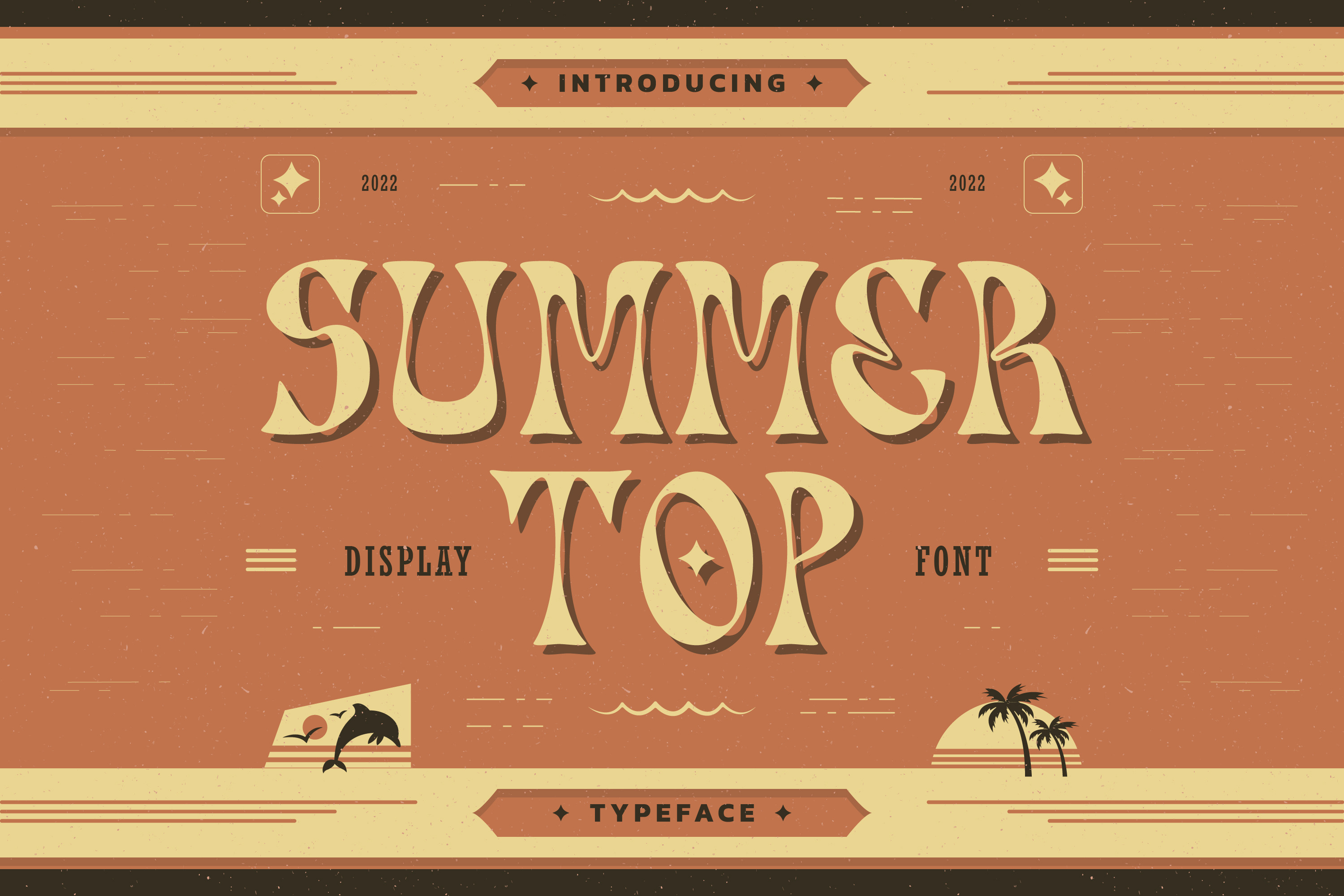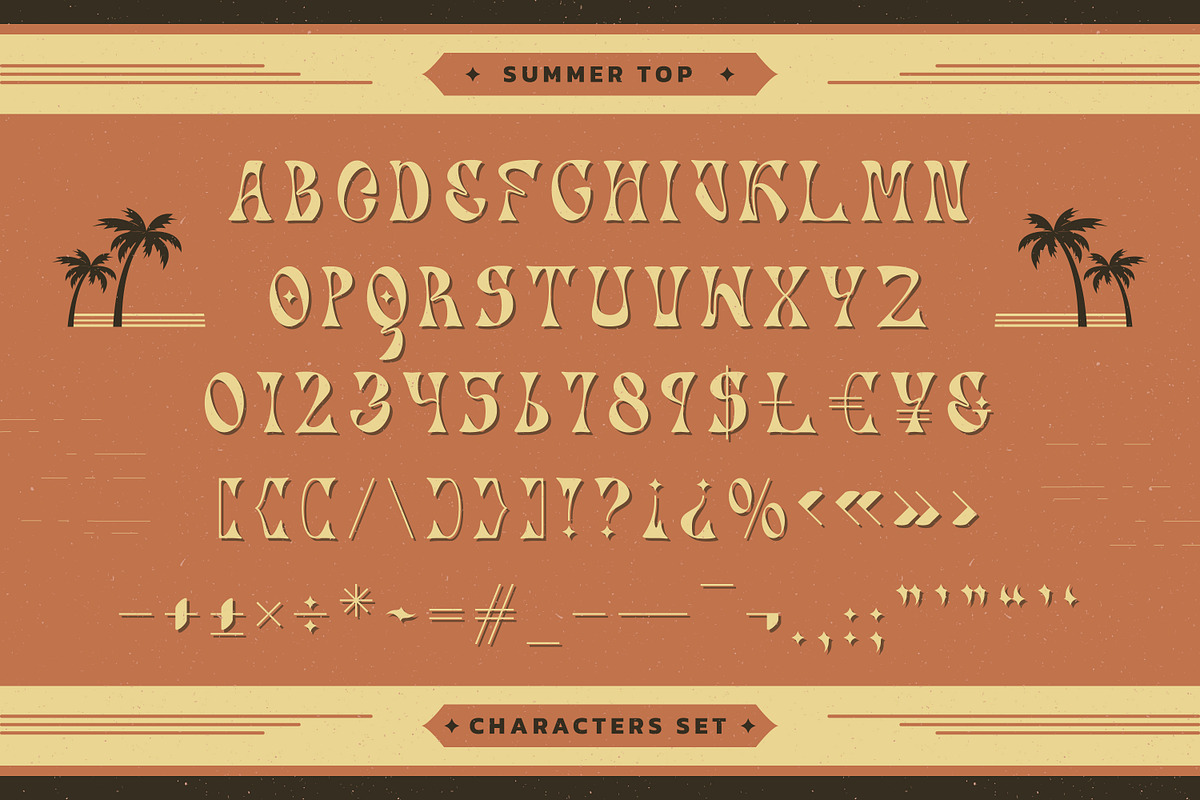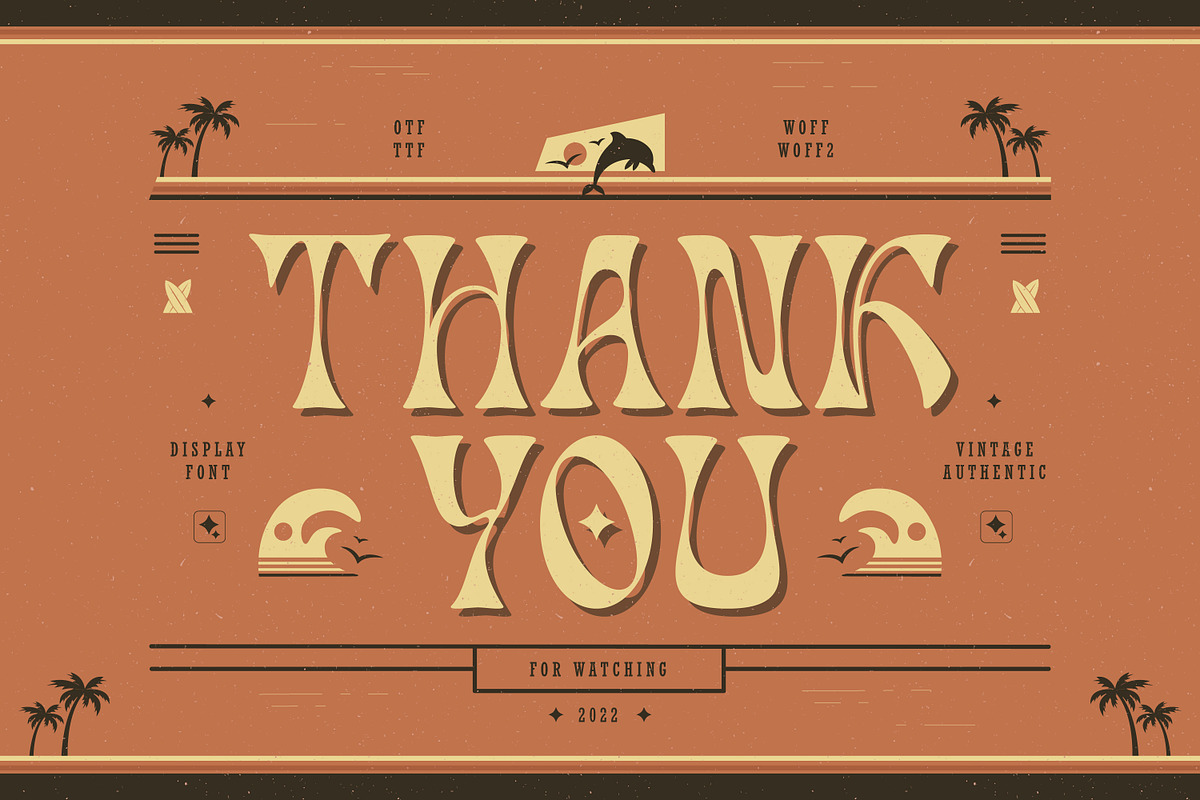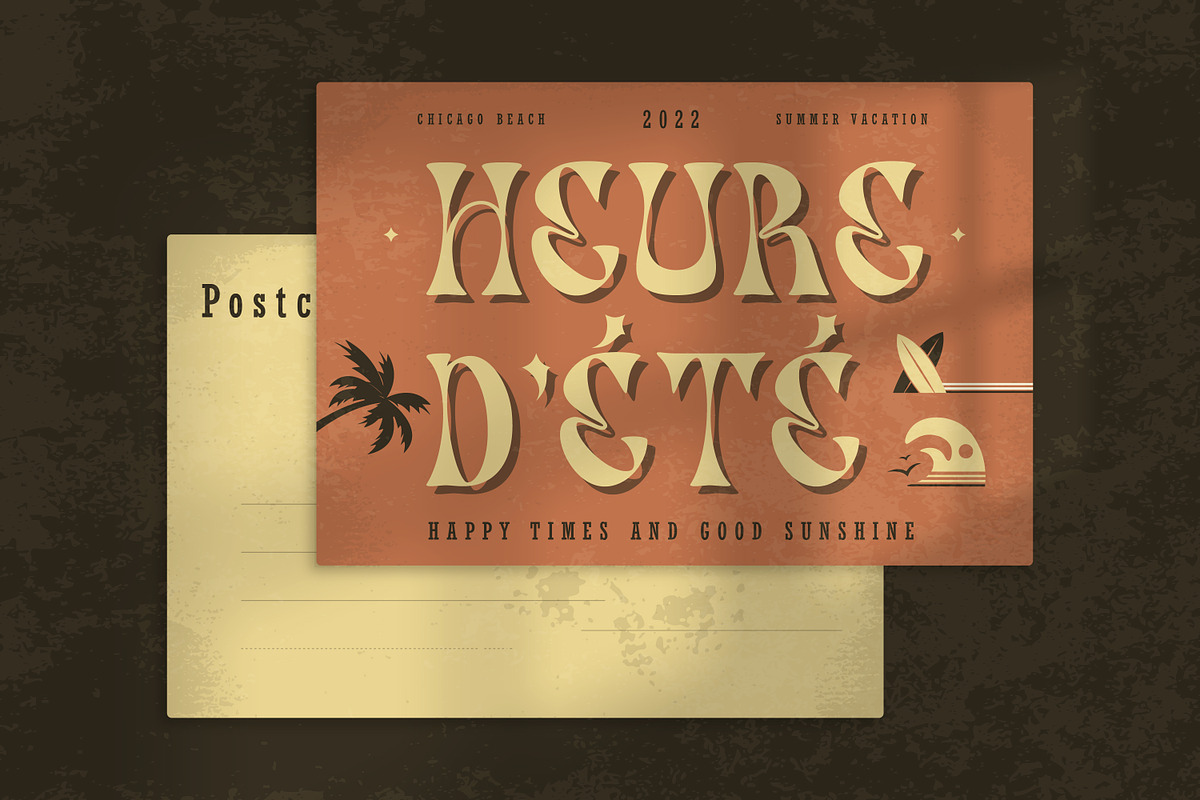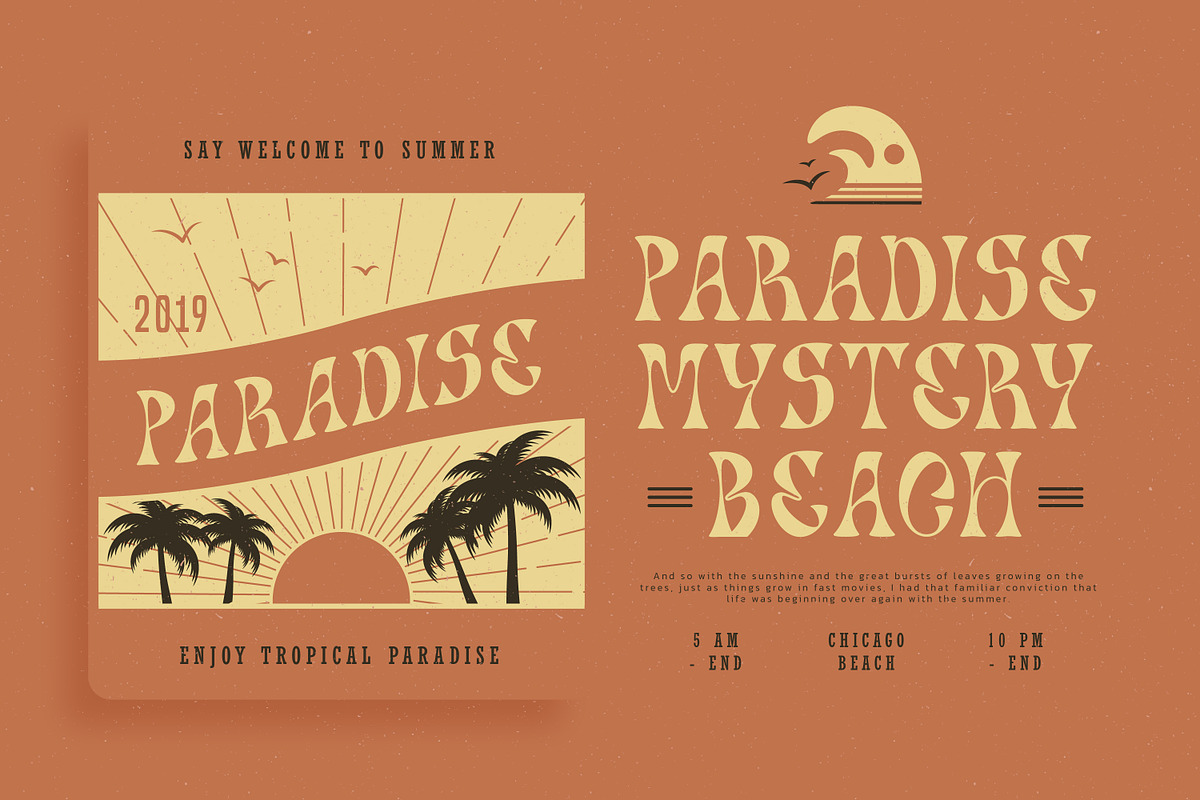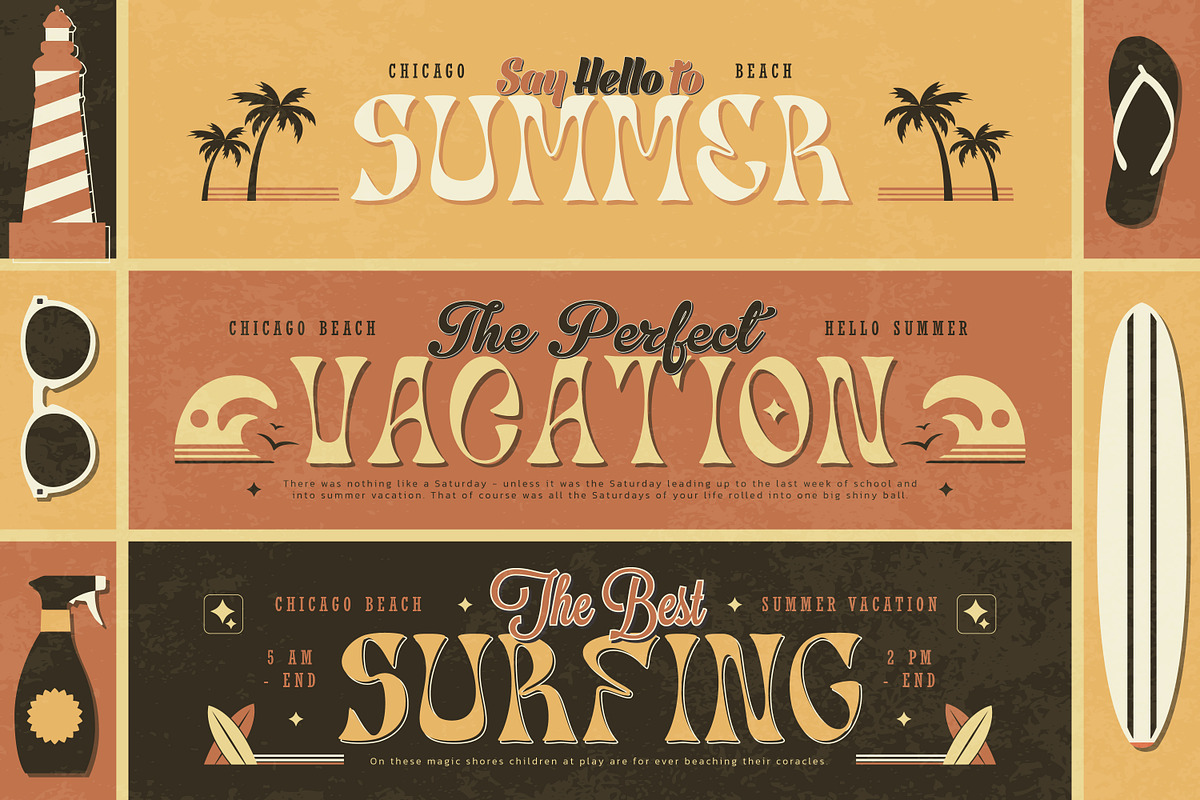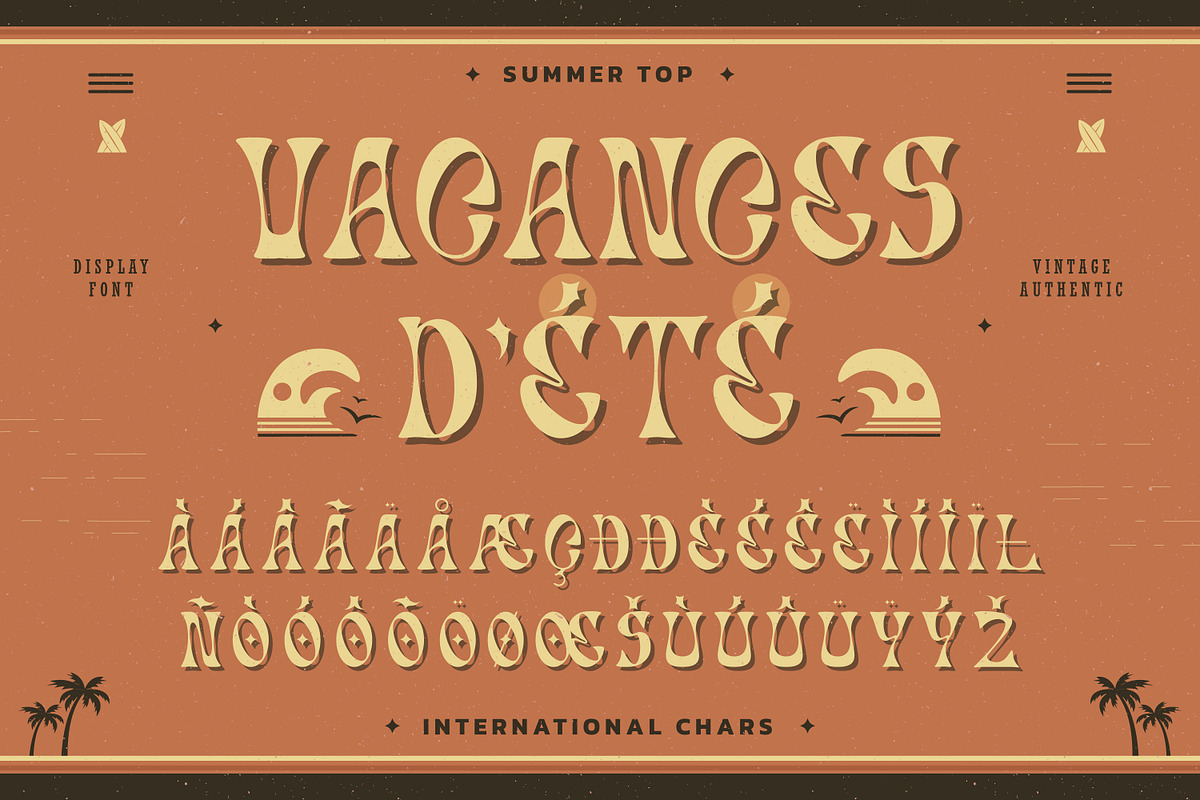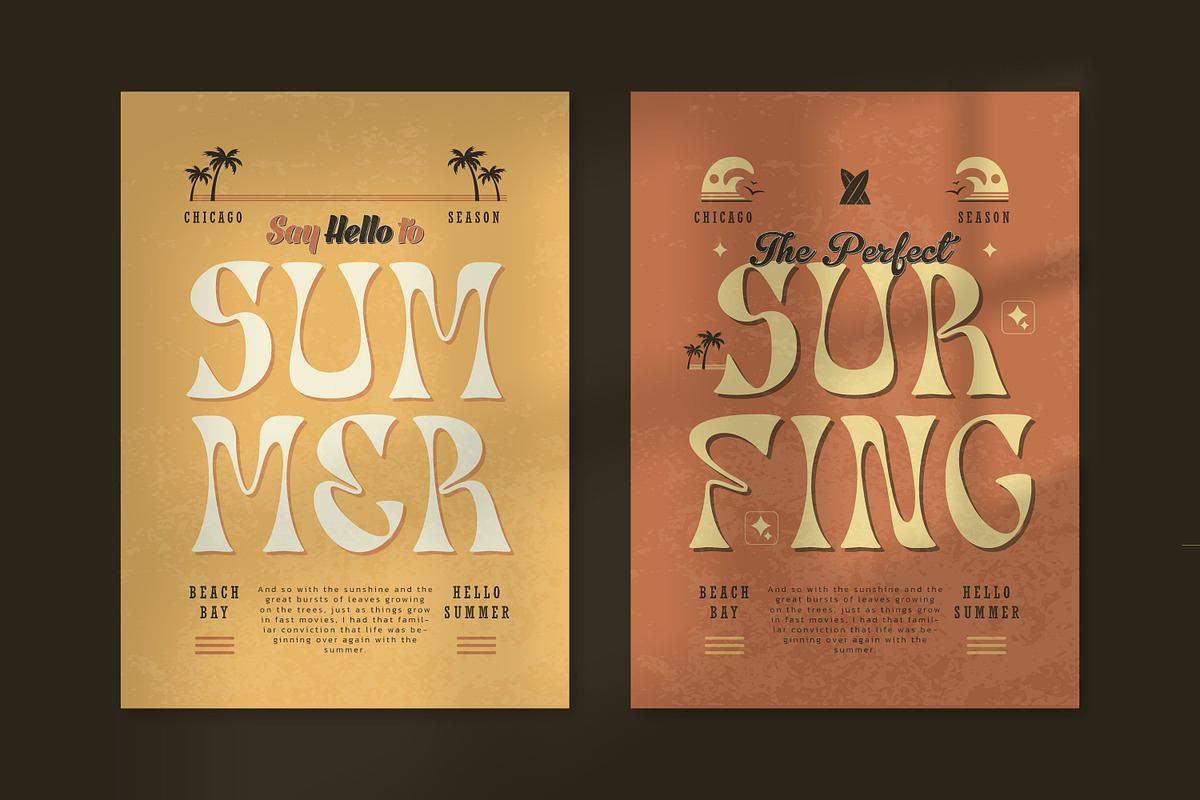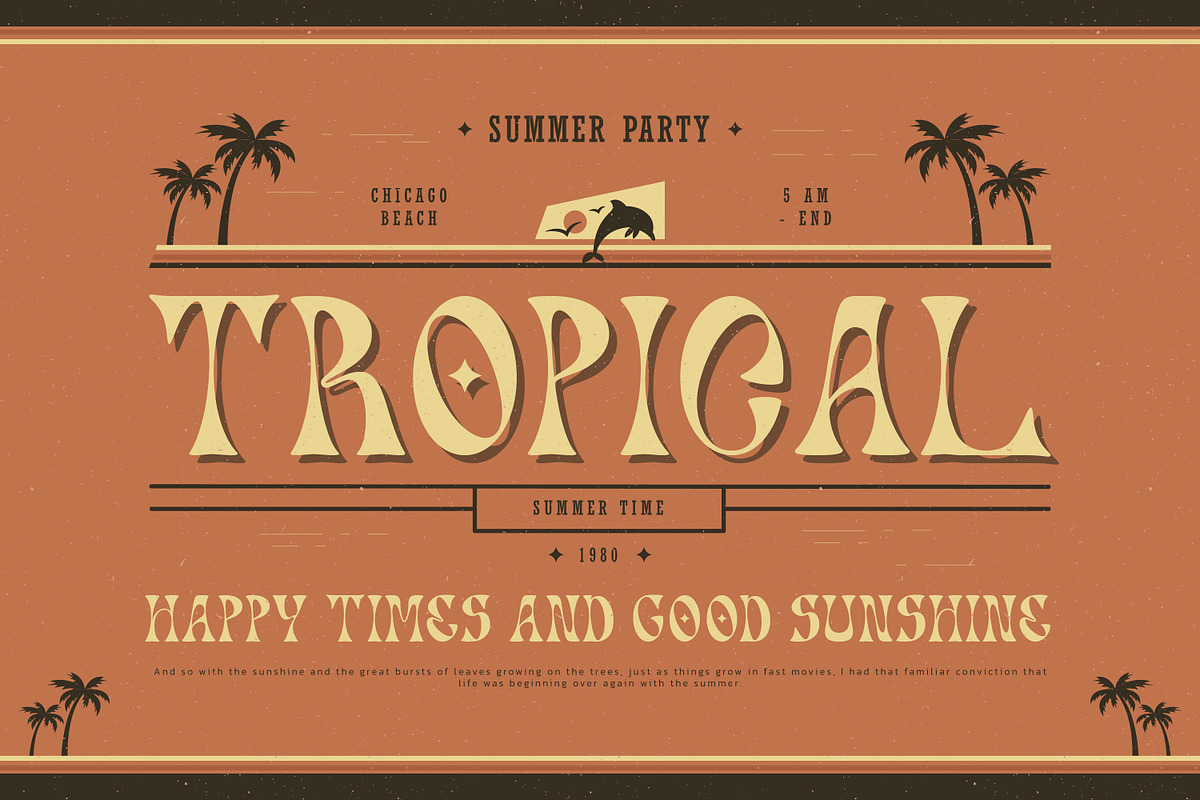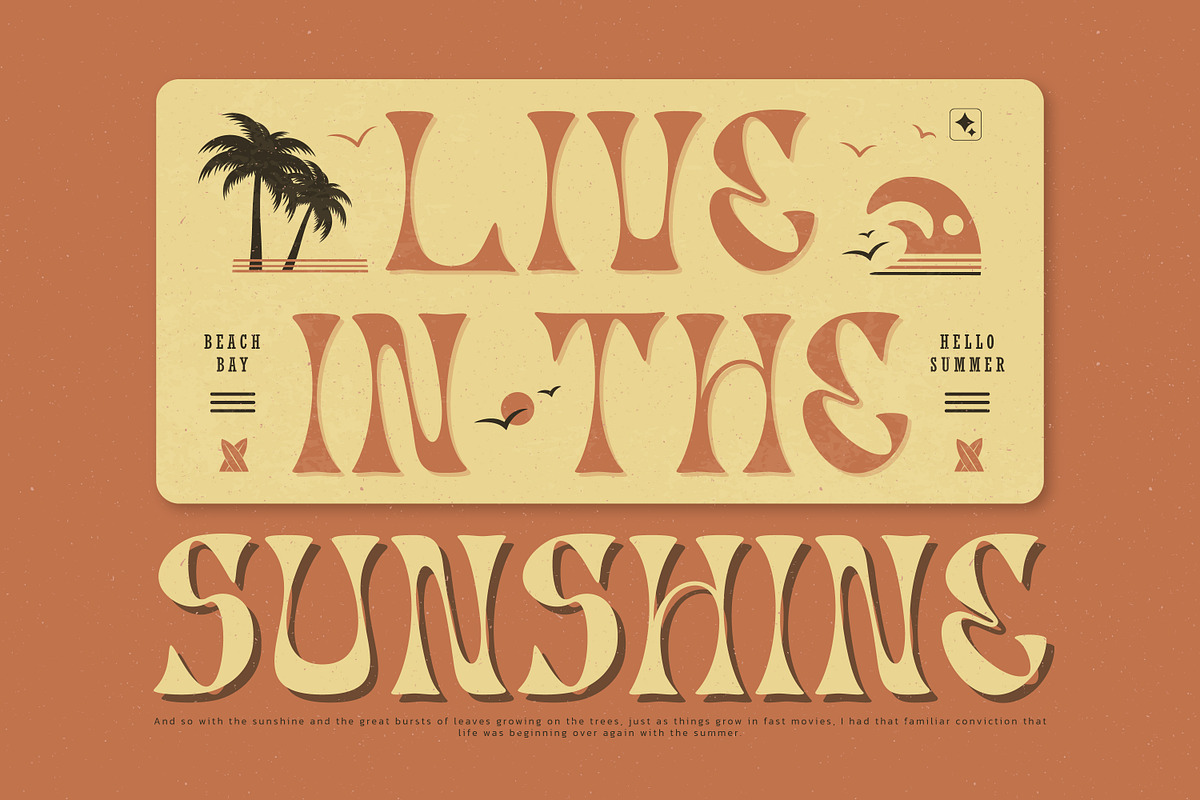
Summer Top Display Typeface
Summer Top is a cool, retro-style display font perfect for your favorite projects. Fall in love with its incredibly distinct and timeless style and use it to create spectacular designs!
- OpenType Features (Stylistic Set)